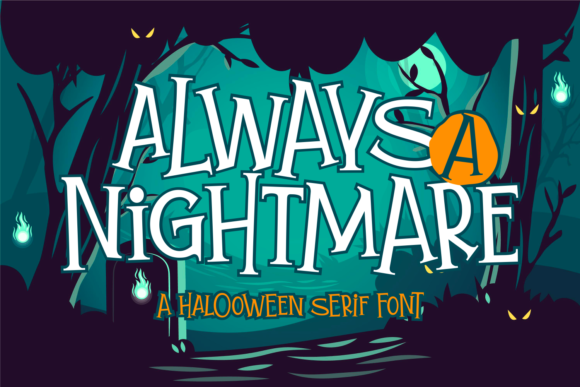
The Ultimate Design Sidekick: Uncovering the Charm of Always a Nightmare Font
I’ll never forget the time I was working on a children’s book design project, and my client asked me to create a title page that would make kids giggle with excitement. I spent hours scouring font libraries, but nothing seemed quite right – until I stumbled upon Always a Nightmare. This quirky serif font has been a game-changer for my designs ever since. In this article, I’ll share my love for Always a Nightmare, its unique features, and how to make the most of it in your creative projects.
Always a Nightmare is more than just a font – it’s a design attitude. Here are some things that make it special:
- ✨ Unique, hand-crafted feel that’s perfect for projects that need a touch of whimsy
- ✅ Excellent for cartoon-related designs, children’s games, and quotes
- ✅ Works beautifully for titles, brand names, book covers, and posters
Of course, no font is perfect, and Always a Nightmare has a few quirks:
- 🤔 Some letters may appear a bit irregular or imperfect, but that’s part of its charm
- ⚠️ May not be the best fit for very formal or traditional designs
The Story Behind Always a Nightmare
Legend has it that the designer behind Always a Nightmare was inspired by the quirky illustrations of classic children’s books. They wanted to create a font that would bring a smile to kids’ faces and make reading more fun. With Always a Nightmare, they succeeded in crafting a font that’s both playful and sophisticated.
| What type of projects is Always a Nightmare best suited for? | Always a Nightmare is perfect for cartoon-related designs, children’s games, quotes, titles, brand names, book covers, and posters. |
| Does Always a Nightmare support OpenType features? | Yes, Always a Nightmare supports OpenType features, including stylistic alternates, ligatures, and glyphs. |